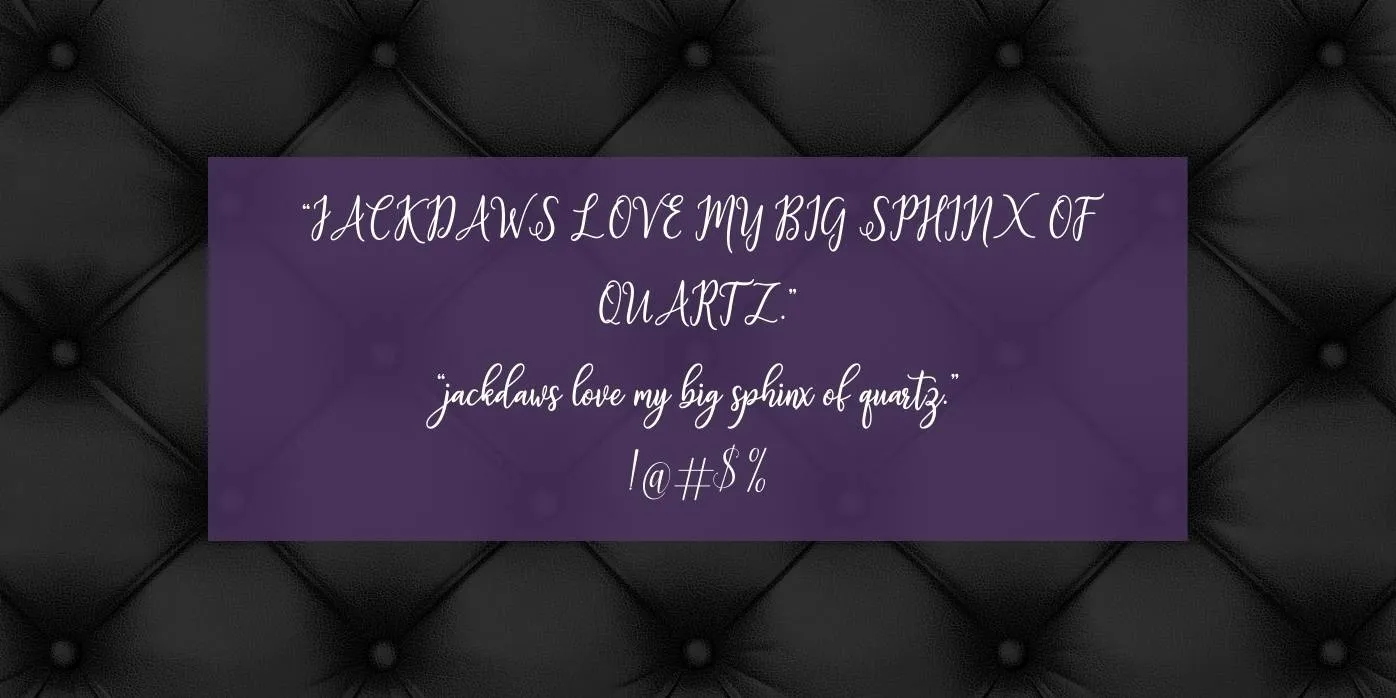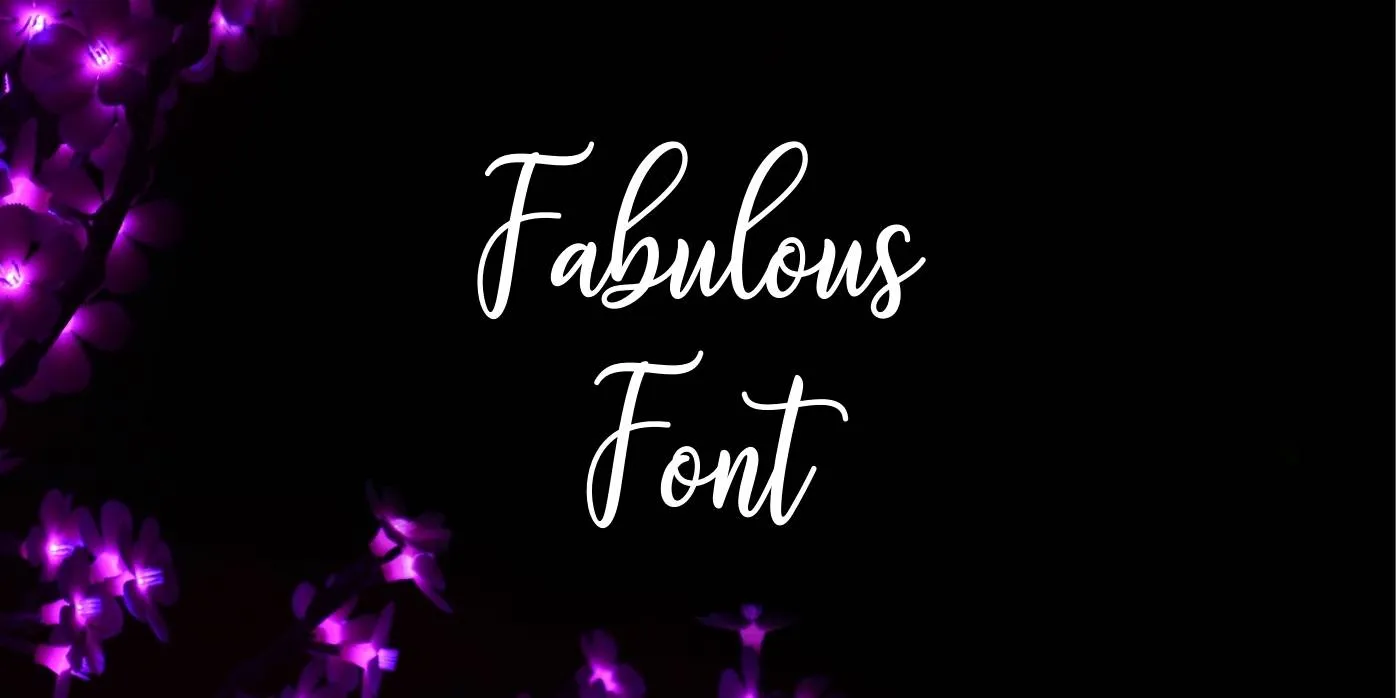
Fabulous Font
Today, we present a modern typeface known as Fabulous Font. It belongs to the category of calligraphy family. This typeface was designed by Amarlettering. It has neat and clean textures.
This typeface is also used for CSS and HTML. This typeface has a very stylish look. It is perfect for branding, invitations, quotes, blogs, website headers, and much more. Fabulous Font comes in two styles – regular and sans serif.
This typeface also includes different glyphs and characters. Some of the notable features of this typeface are it Includes upper and lowercase characters. It Supports different languages. You can also utilize the generator tool of this family.